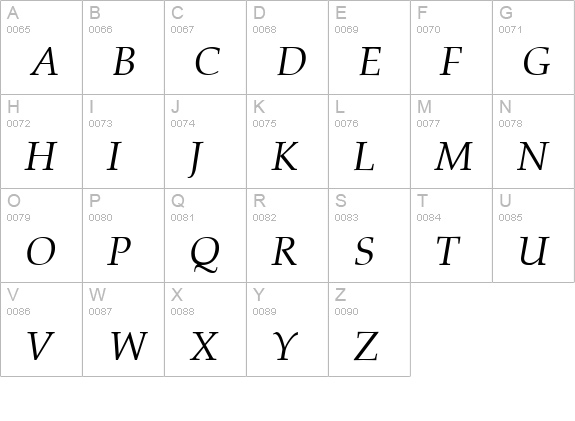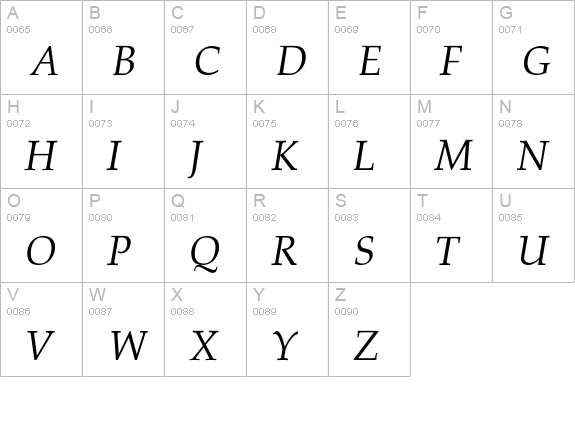
Criteria SSi Italic is a distinctive, italic variant in the Criteria typeface family \xE2\x80\x94 well suited to design and typography projects.
The Criteria SSi Italic font exudes elegance and sophistication with its sleek and modern design. Its slanted and stylish letterforms add a touch of flair to any project, making it ideal for bold headers or eye-catching logos. This versatile font is perfect for creating a polished and professional look in both print and digital media. What's even better is that Criteria SSi Italic is available for free download at FontsMarket.com. Now you can elevate your designs without breaking the bank, thanks to this high-quality font that is just a click away. Don't miss out on the opportunity to enhance your creative projects with this stunning typeface that combines style and functionality seamlessly. Download Criteria SSi Italic today and make a lasting impression with your designs.